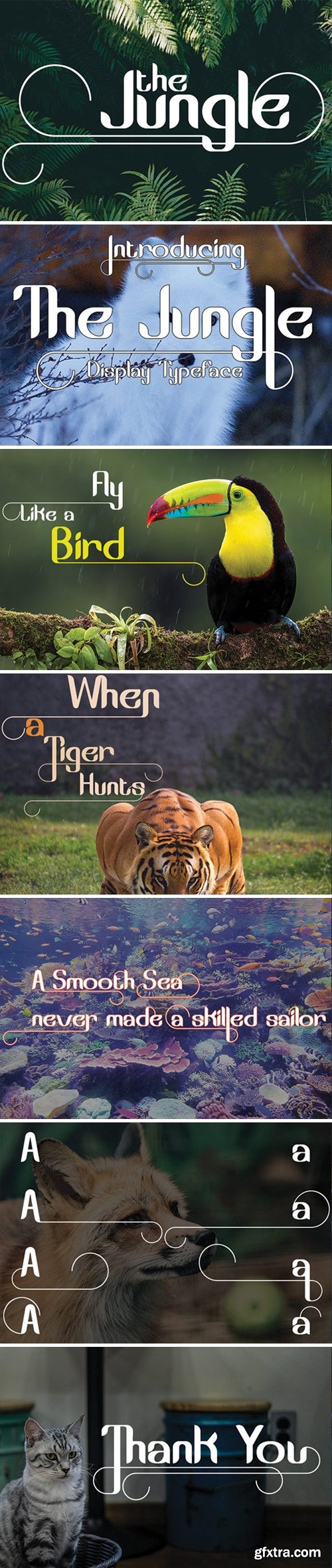
The Jungle Font
The jungle is a font display inspired by forest life and environmental concerns. It has unique features and charming alternative forms.